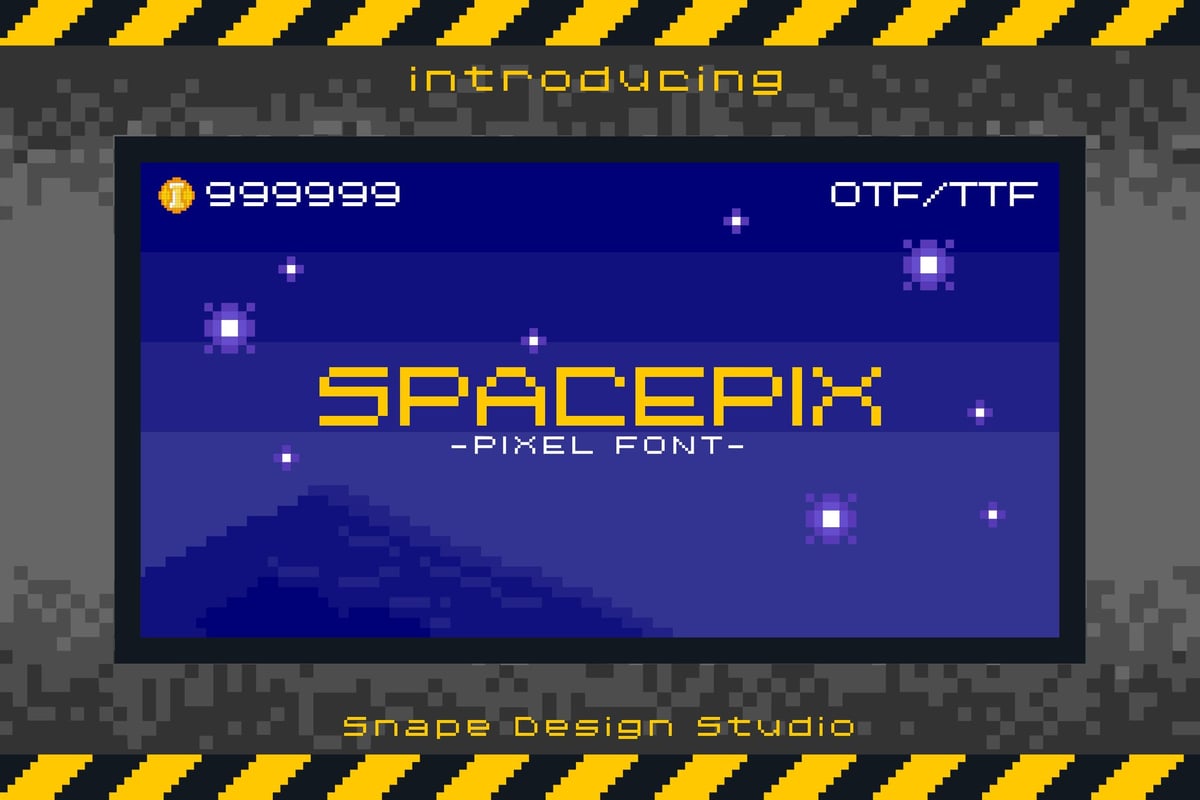
Spacepix - Pixel Font
Transform your projects with authentic retro pixel typography that captures classic arcade gaming nostalgia. Spacepix delivers that perfect 8-bit aesthetic for retro game design themes, bringing authentic pixelated character to your creative work. This versatile pixel typeface works beautifully across movies, documentaries, films, logos, posters, games, book covers, headlines, titles, and countless other design projects. Add this distinctive font to your creative toolkit and watch your designs i...